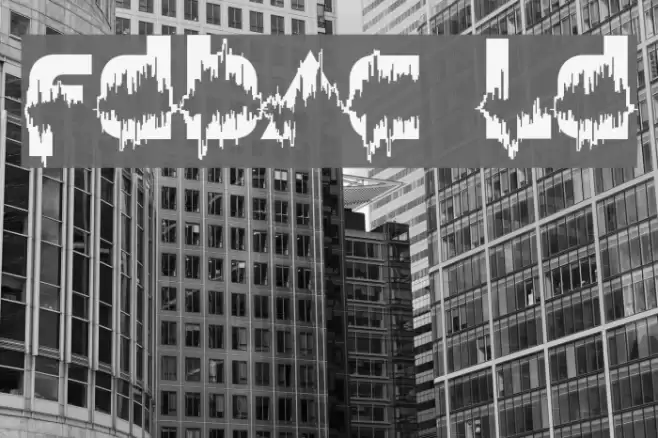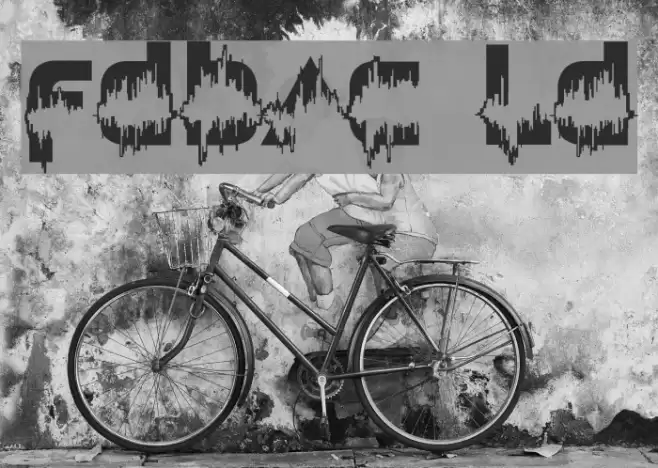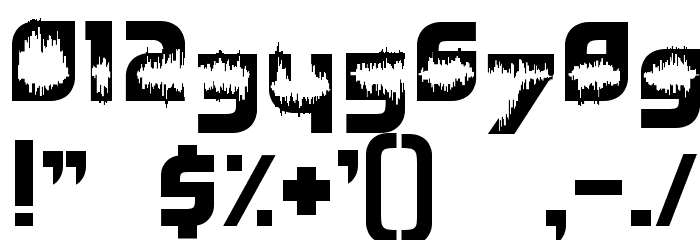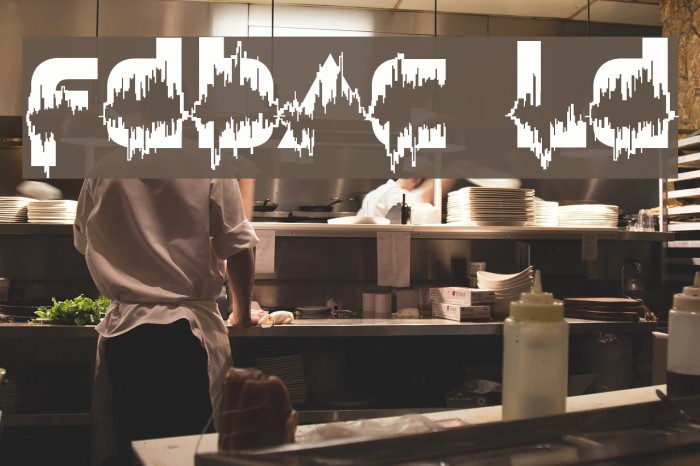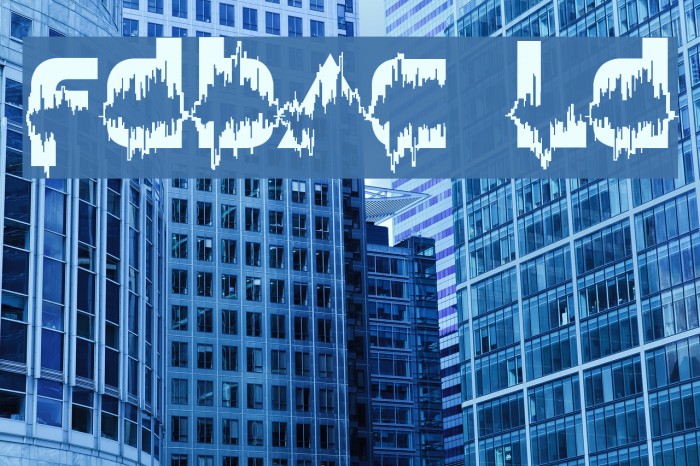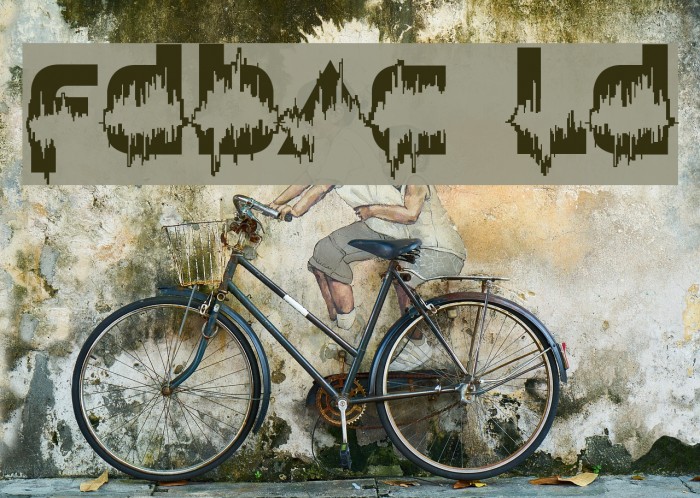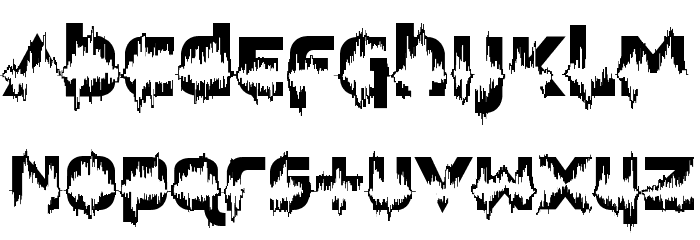
Feedback Loud Font
Feedback Loud Description
This font features a bold and dynamic design with a distressed, glitch-like effect that gives it a unique, edgy appearance. The characters are bold and heavily stylized, with jagged edges and irregular forms that create a sense of movement and energy. This font is ideal for projects that require a modern and unconventional look, such as music album covers, event posters, or digital art. The uppercase and lowercase letters maintain a consistent style, while the numbers and special characters complement the overall aesthetic, making it versatile for various creative applications.
A bold, distressed font with a glitch-like effect, perfect for modern and edgy designs from Uncategorized fonts.
- Proposed Projects: Ideal for music album covers, event posters, digital art, and any project needing a modern, edgy look.